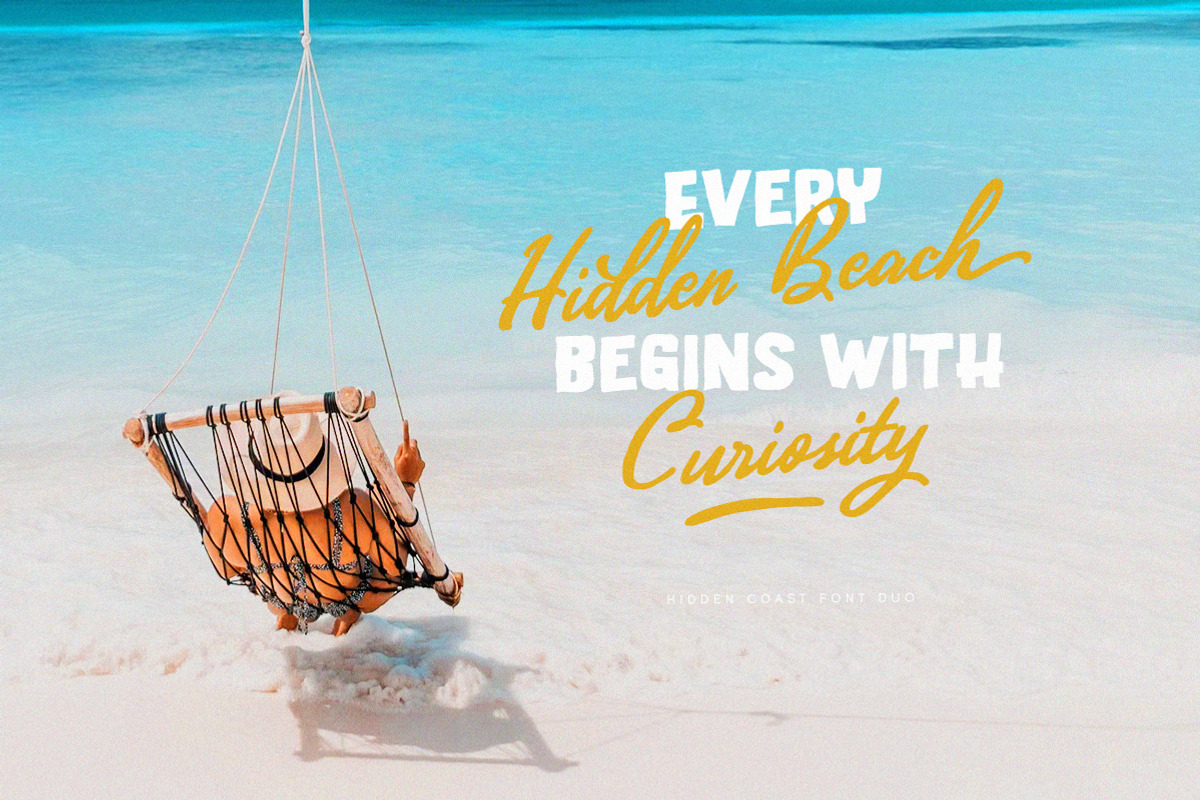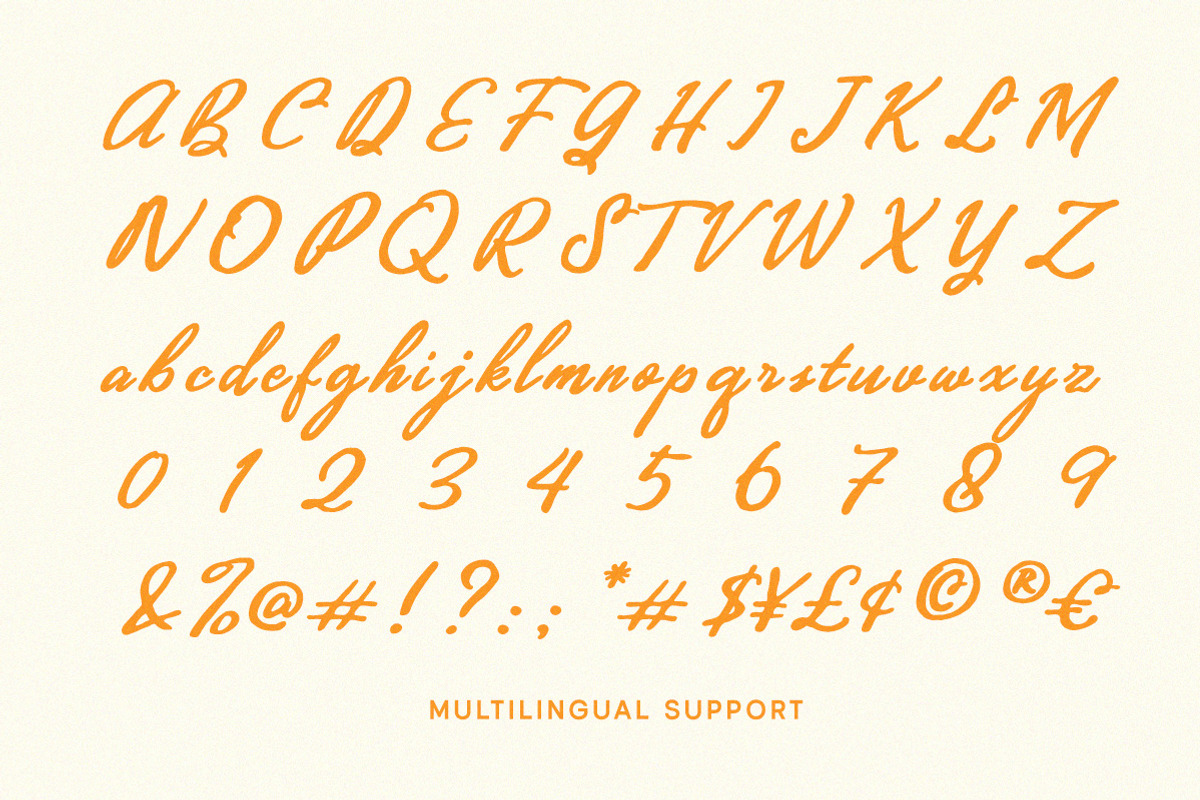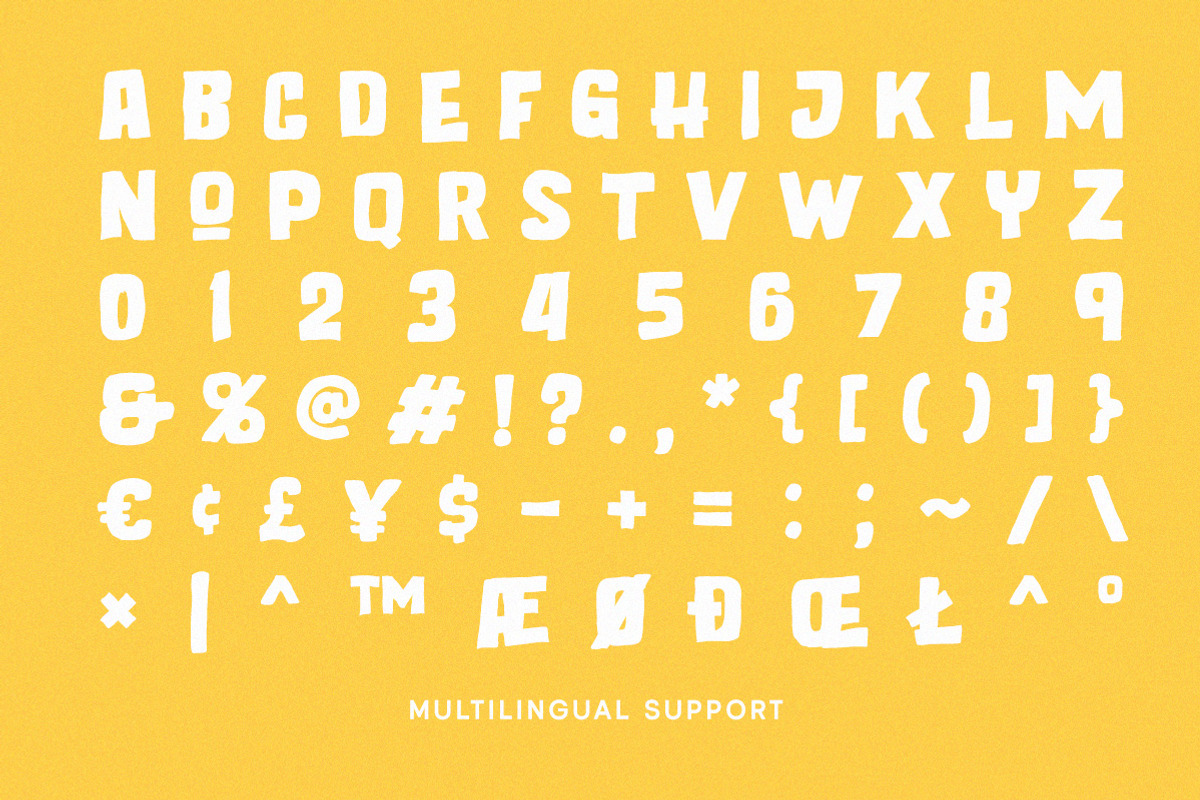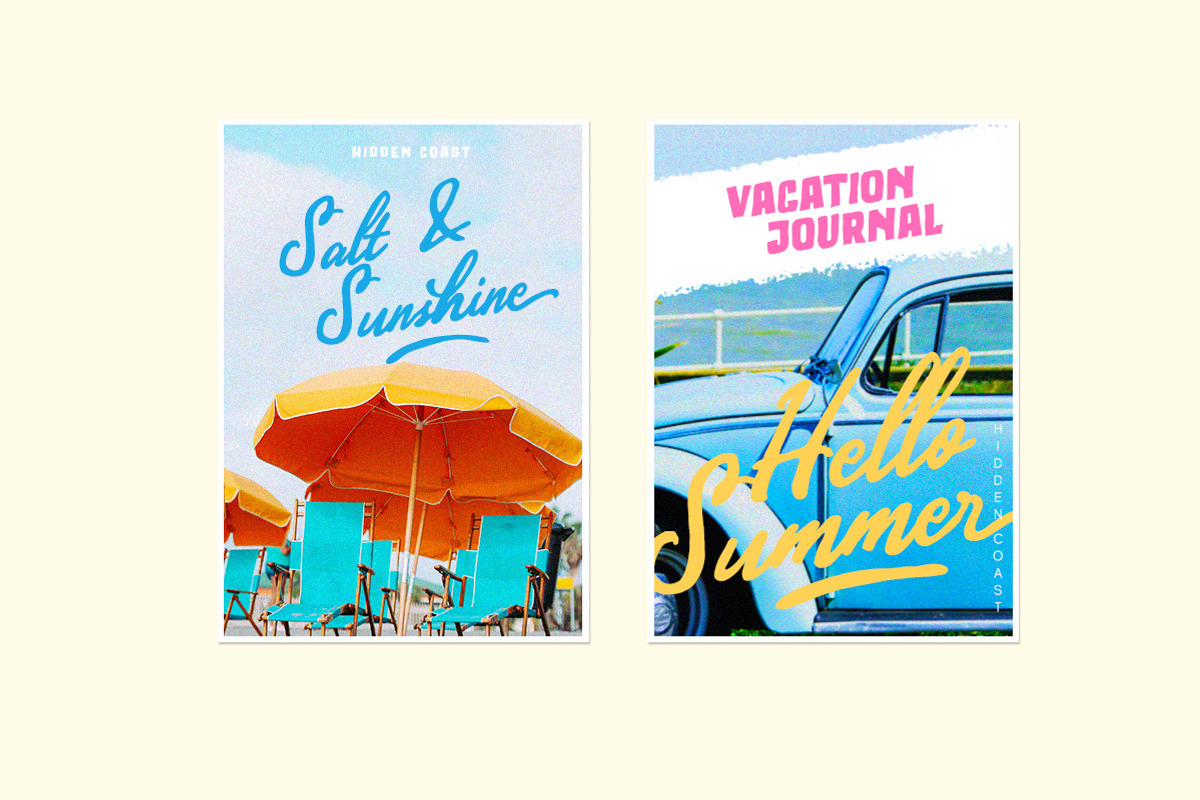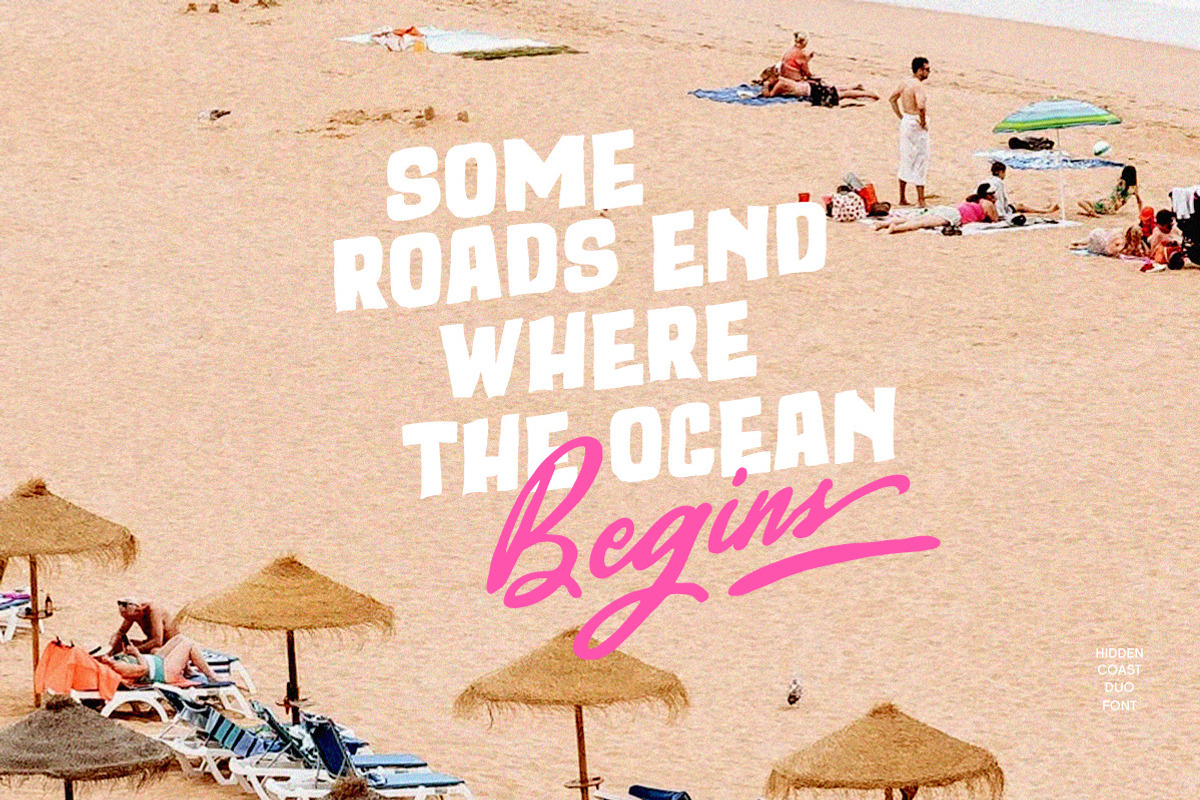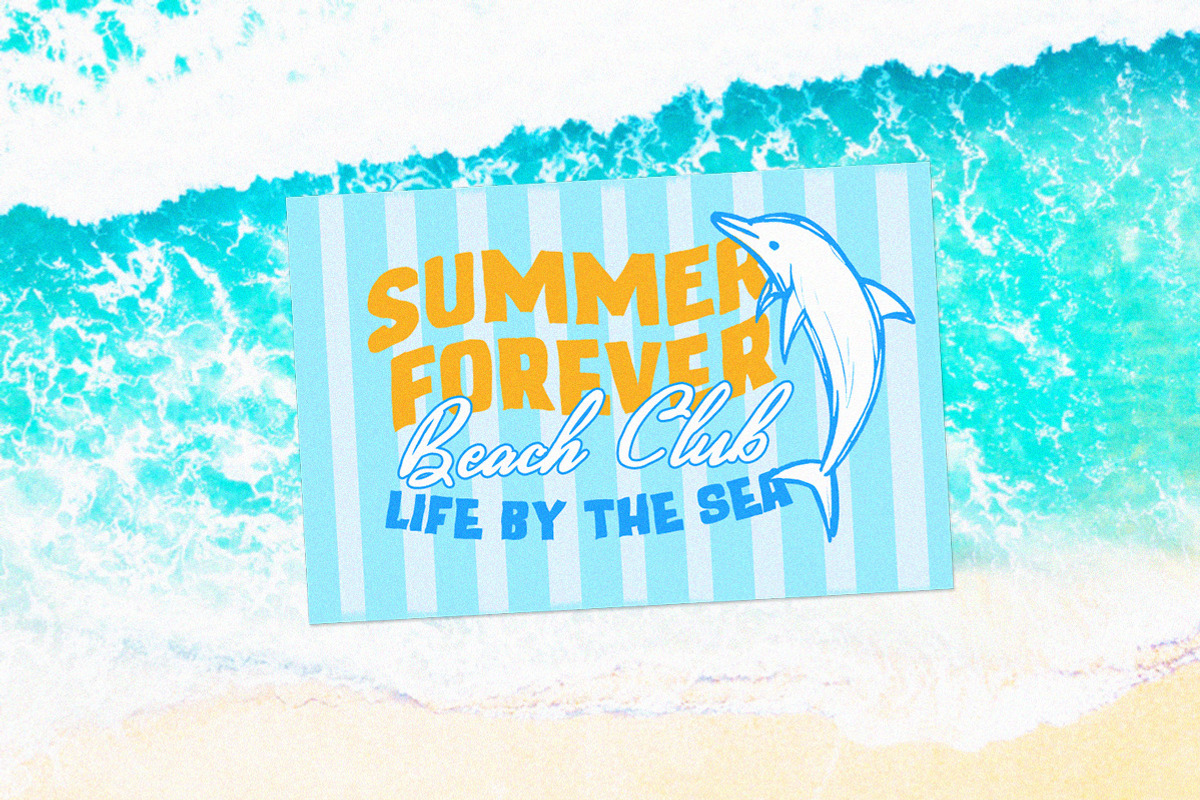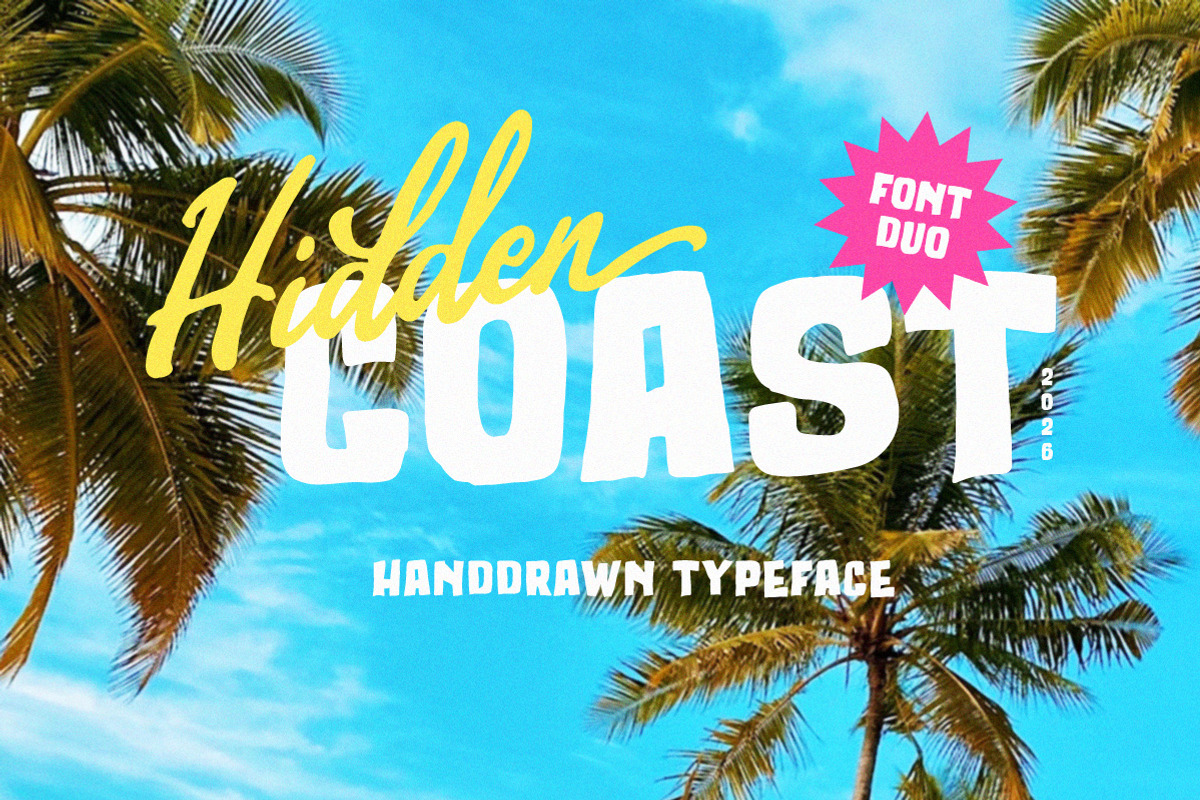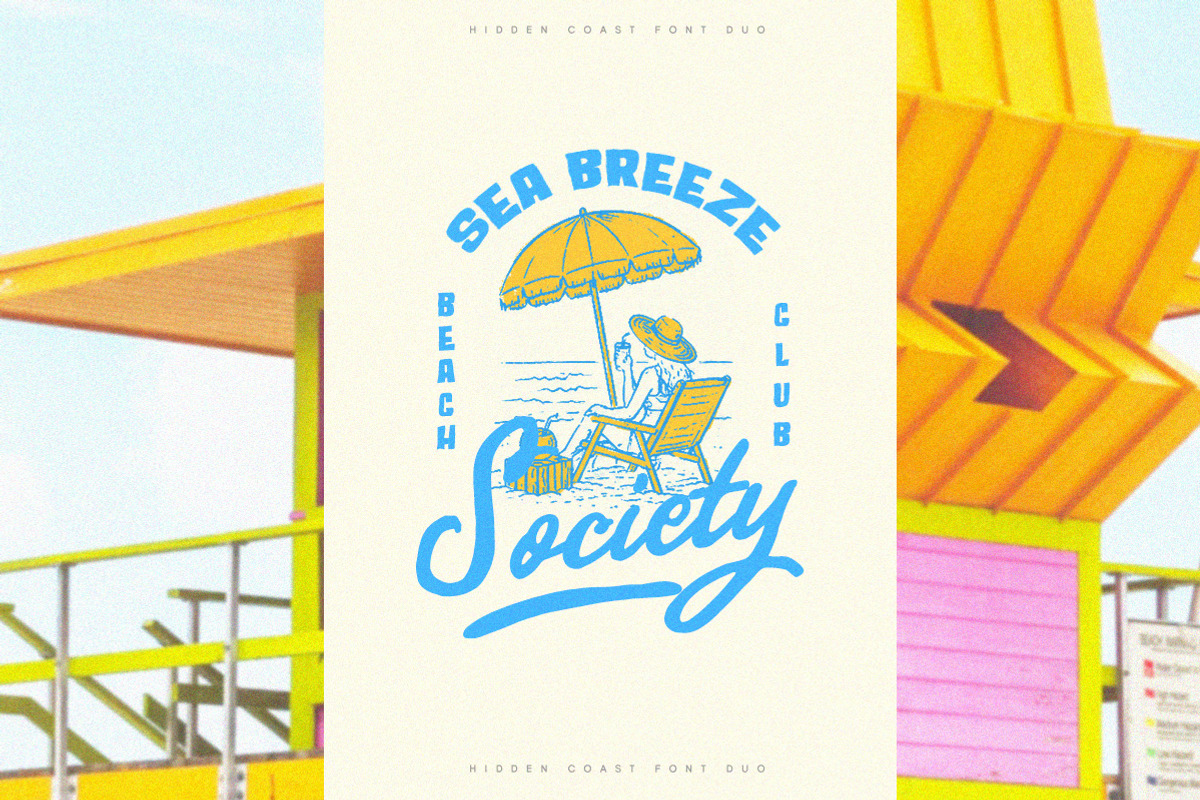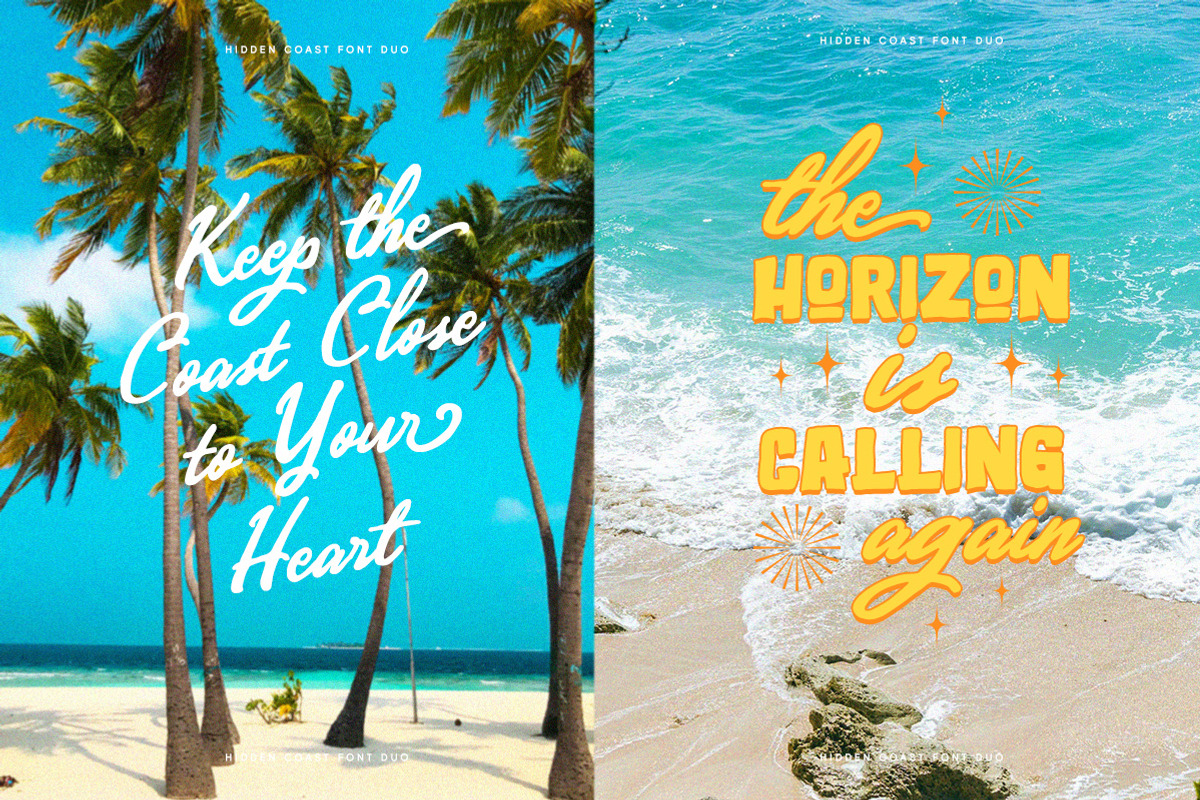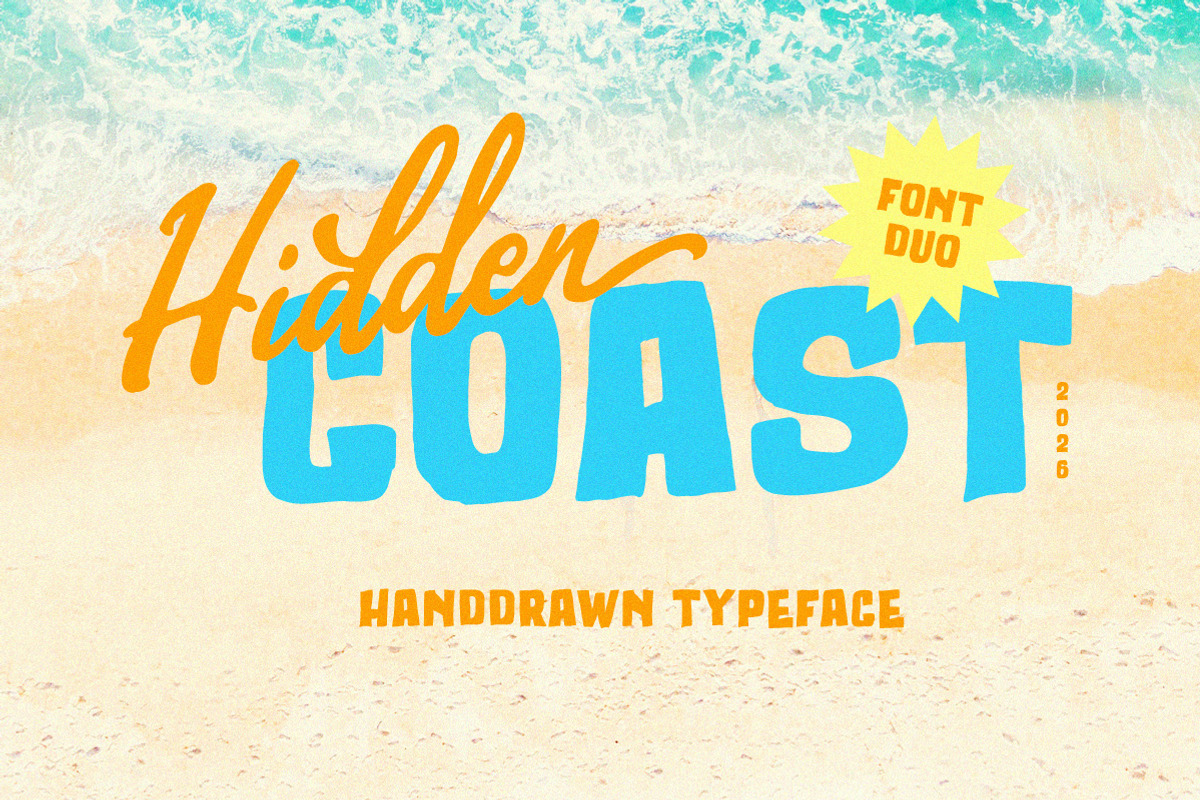
Hidden Coast – Retro Surf Font Duo
Hidden Coast brings the easygoing spirit of a sun-drenched getaway to your lettering, pairing a lively brush script with a chunky hand-drawn display style full of movement and character. Its bold shapes, loose strokes, and playful rhythm capture the charm of vintage surf posters, beachside signs, summer road trips, and carefree coastal adventures.
Uppercase & lowercase
Alternates & Ligatures